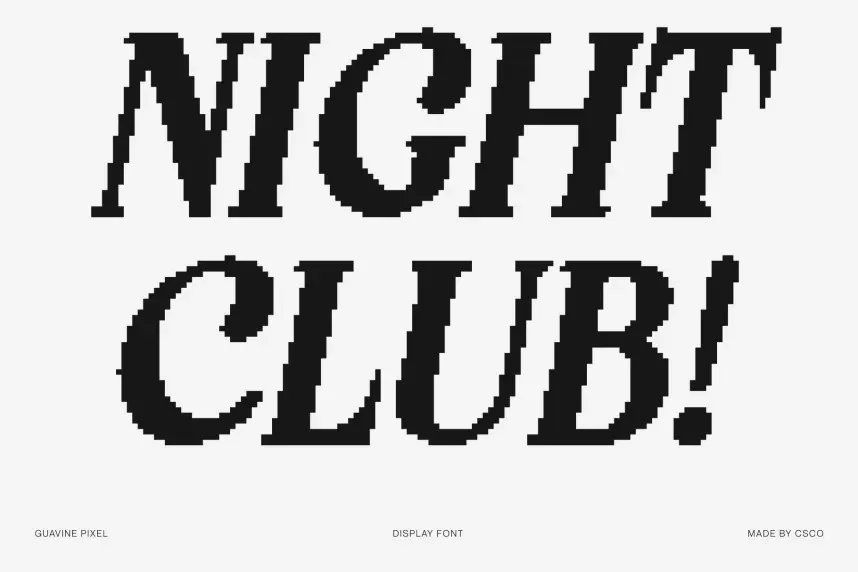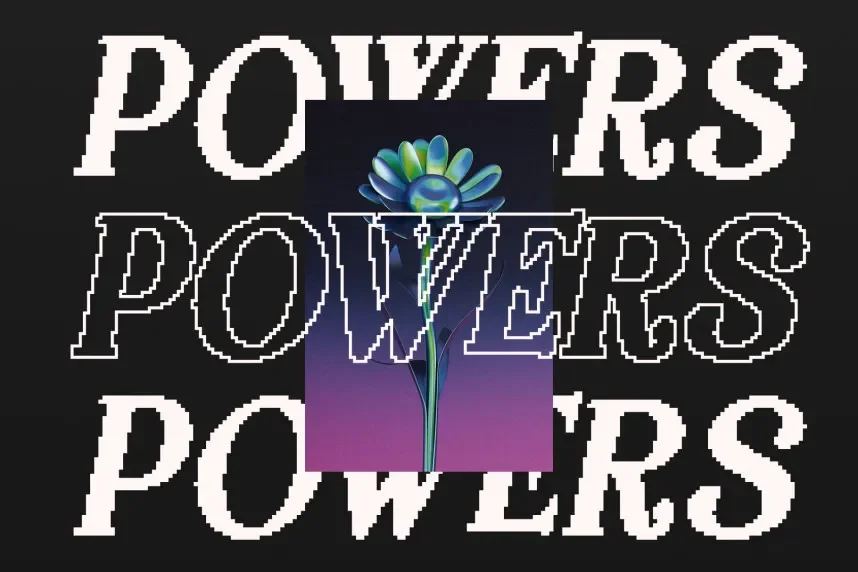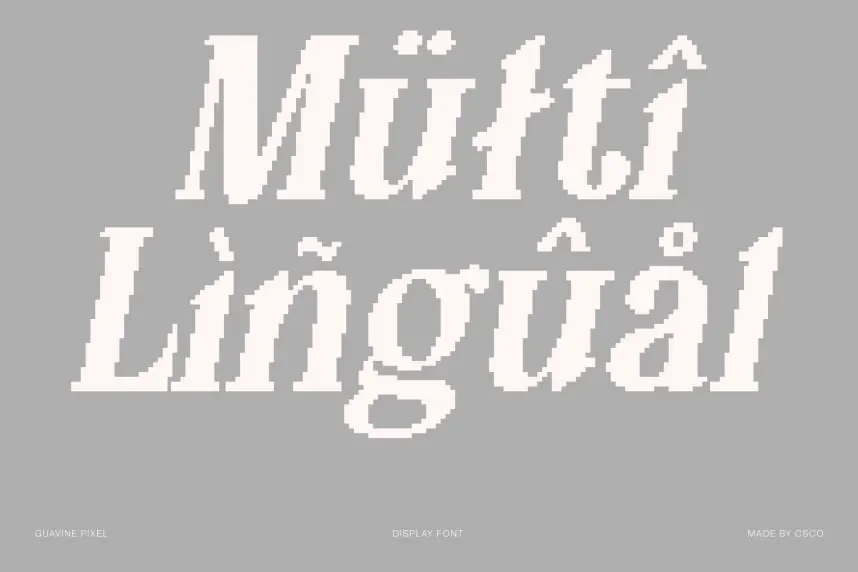
Guavine Pixel Font is a digital-inspired typeface with a pixelated structure. Its clean lines and distinct edges make it perfect for tech-related projects, such as branding, gaming websites, and app interfaces that need a retro touch with modern clarity.